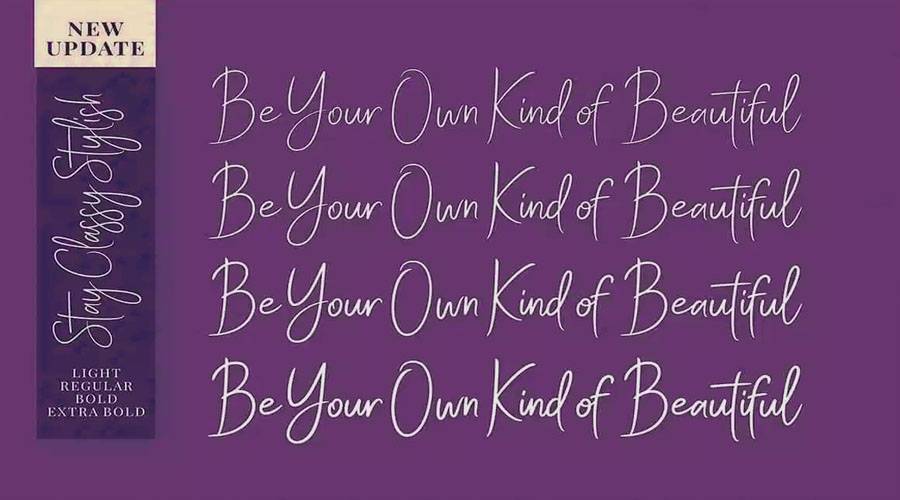
Stay Classy
Stay Classy is a lovely and basic free manually written content text style that is planned and distributed from Solidtype. The text style was distributed on June 20, 2018.
Stay Classy has a contemporary and elegant style – ideal for a massive scope of activities. This exquisite textual style is readable and looks incredible as a feature or in body text. In addition, you’ll get more than 70 ligatures, lowercase substitutes and different dialects support. The versatile Font is already available in the creative market. There are many identical fonts as stay classy. But this font always comes first from the users for its bold and beautiful appearance. The lovely font is perfect for almost every project, but especially for any content creating work.
This textual style will ideal for various ventures like contributing to a blog, web-based media, marking, wedding welcomes, cards and so forth.